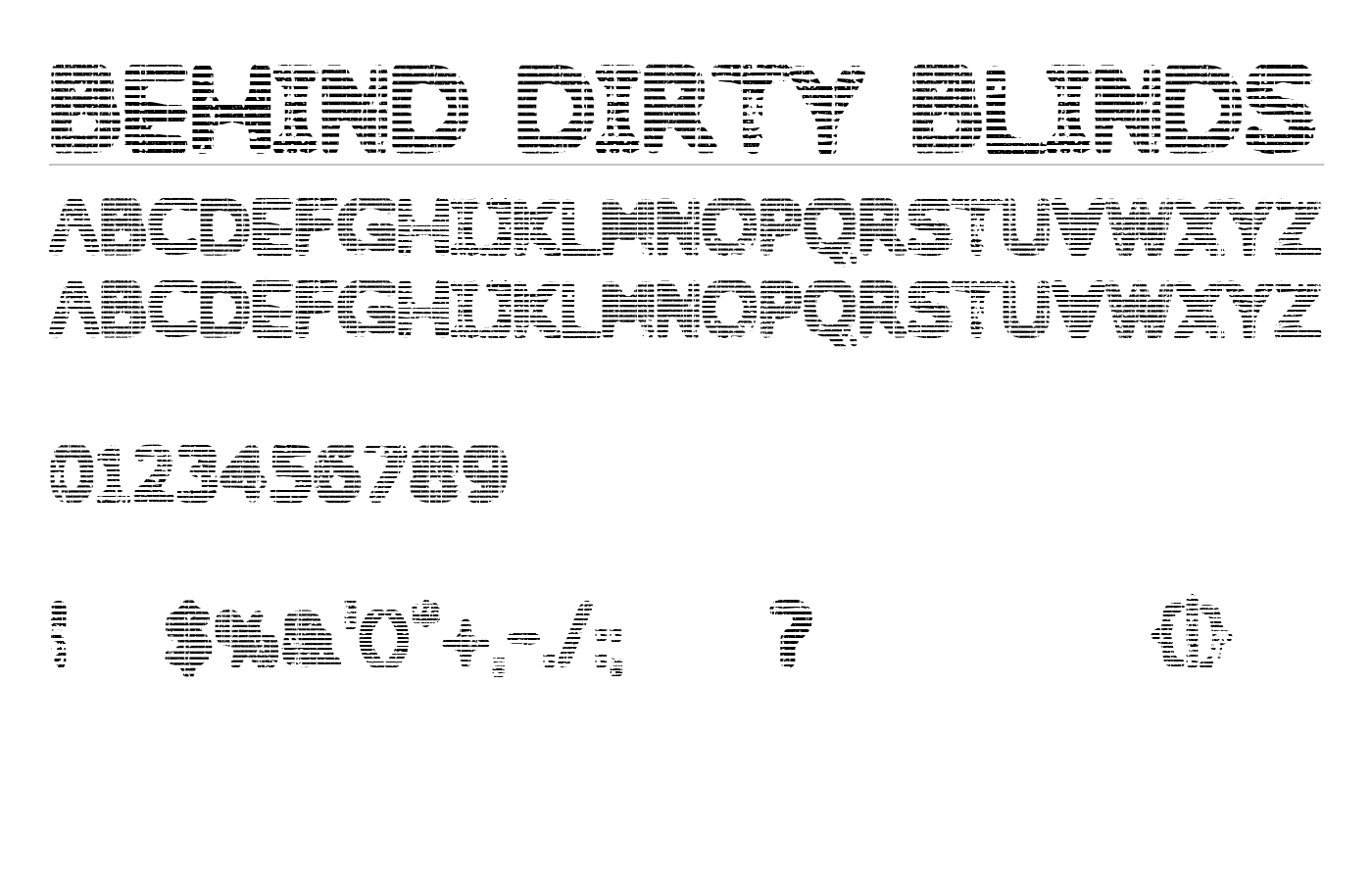
Behind Dirty Blinds is a bold, stencil-inspired sans serif font featuring horizontal lines that create a distressed, textured look reminiscent of worn or partially obscured blinds. Its even weight and wide letterforms give it a strong visual presence while maintaining readability, making it ideal for eye-catching headlines, posters, or branding projects that seek a gritty, urban, or industrial vibe. This font works well to add a unique, edgy character to designs that want to convey mystery, depth, or an unconventional style.
Behind Dirty Blinds Font
About Behind Dirty Blinds Font
| Font family | Behind Dirty Blinds Font |